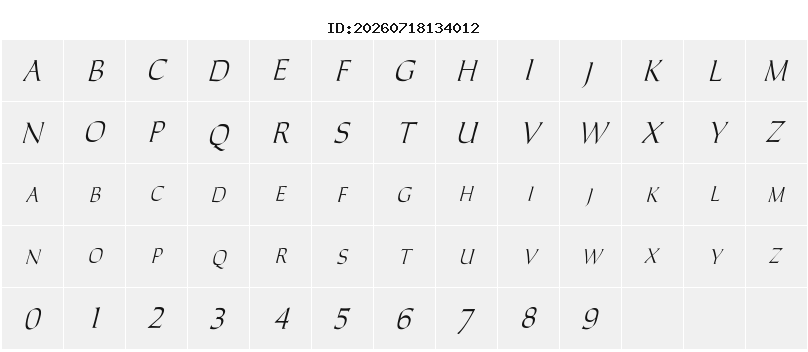
About Caracub-Italic.ttf
Caracub-Italic.ttf is a modern, elegant sans-serif font designed for ultimate readability and visual harmony. Perfect for branding, headlines, web design, and print materials.